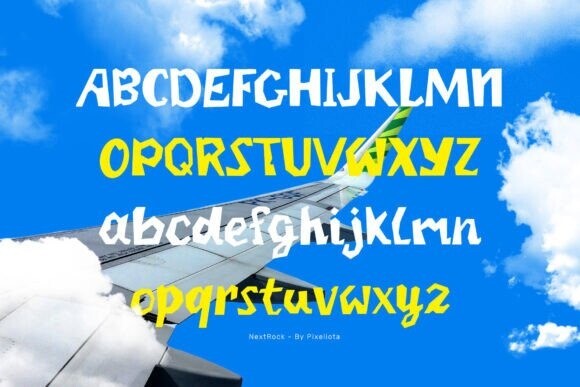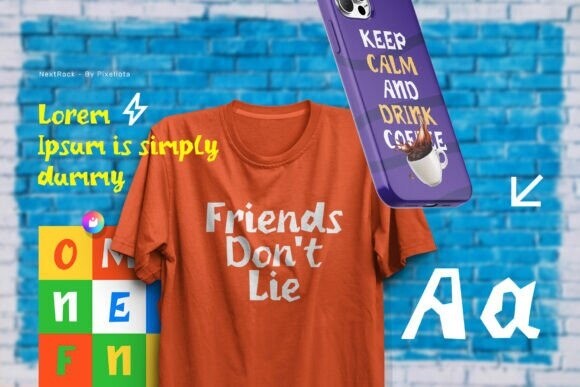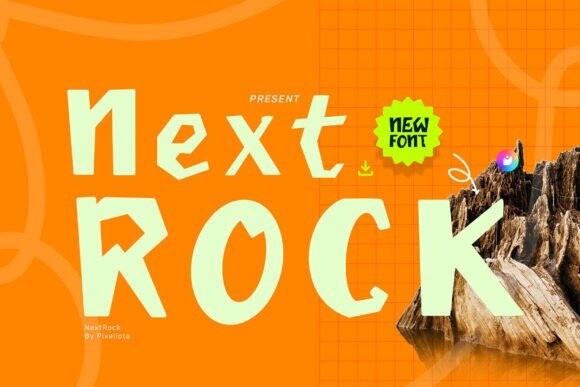
Next Rock Font
Designer: Pixeliota
Next Rock Font is a bold, edgy display font that brings a unique, handcrafted feel to any project. Inspired by rugged textures and organic shapes, NextRock stands out with its sharp edges and playful curves, making it perfect for titles, logos, posters, and any creative display use.